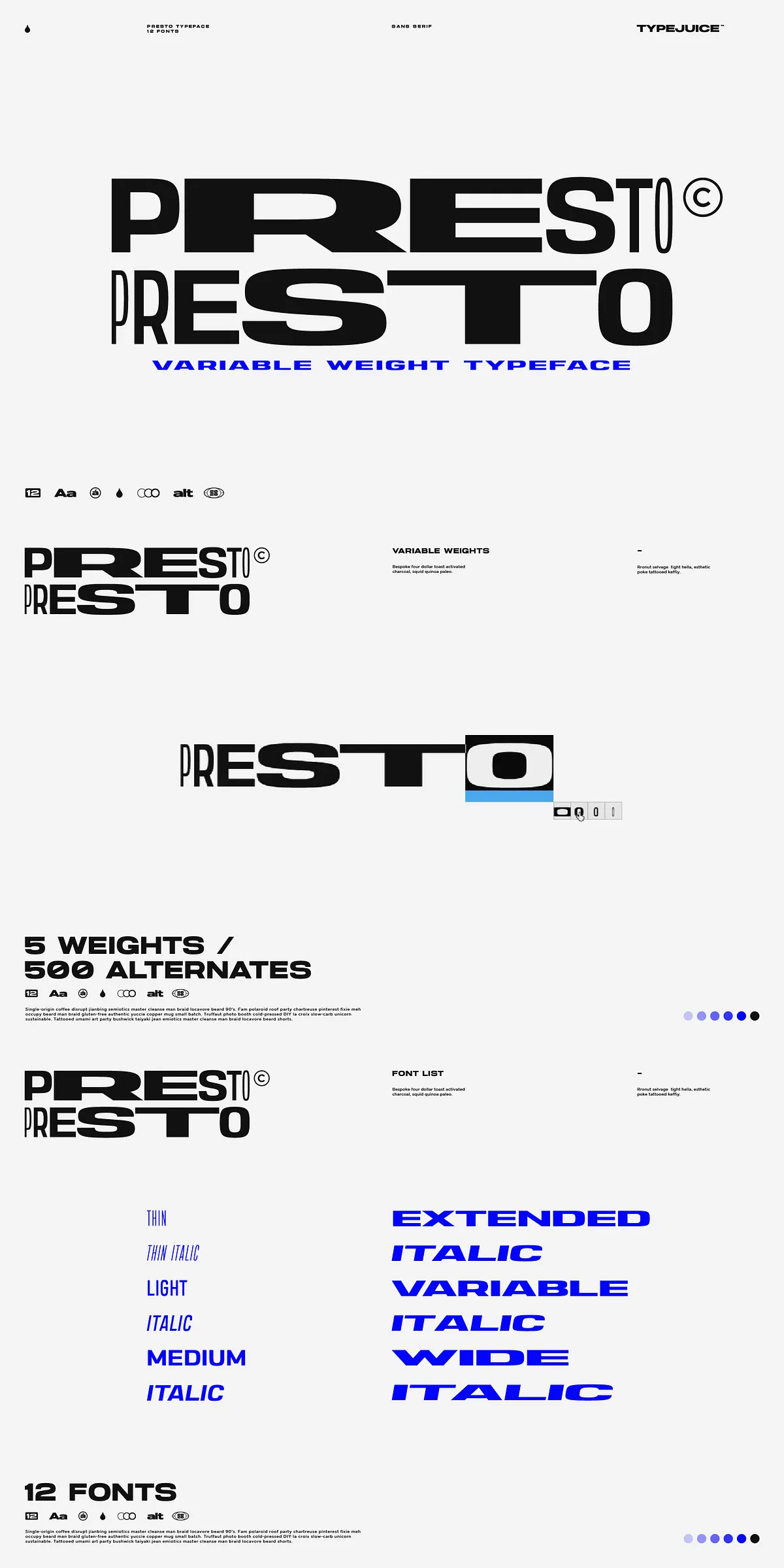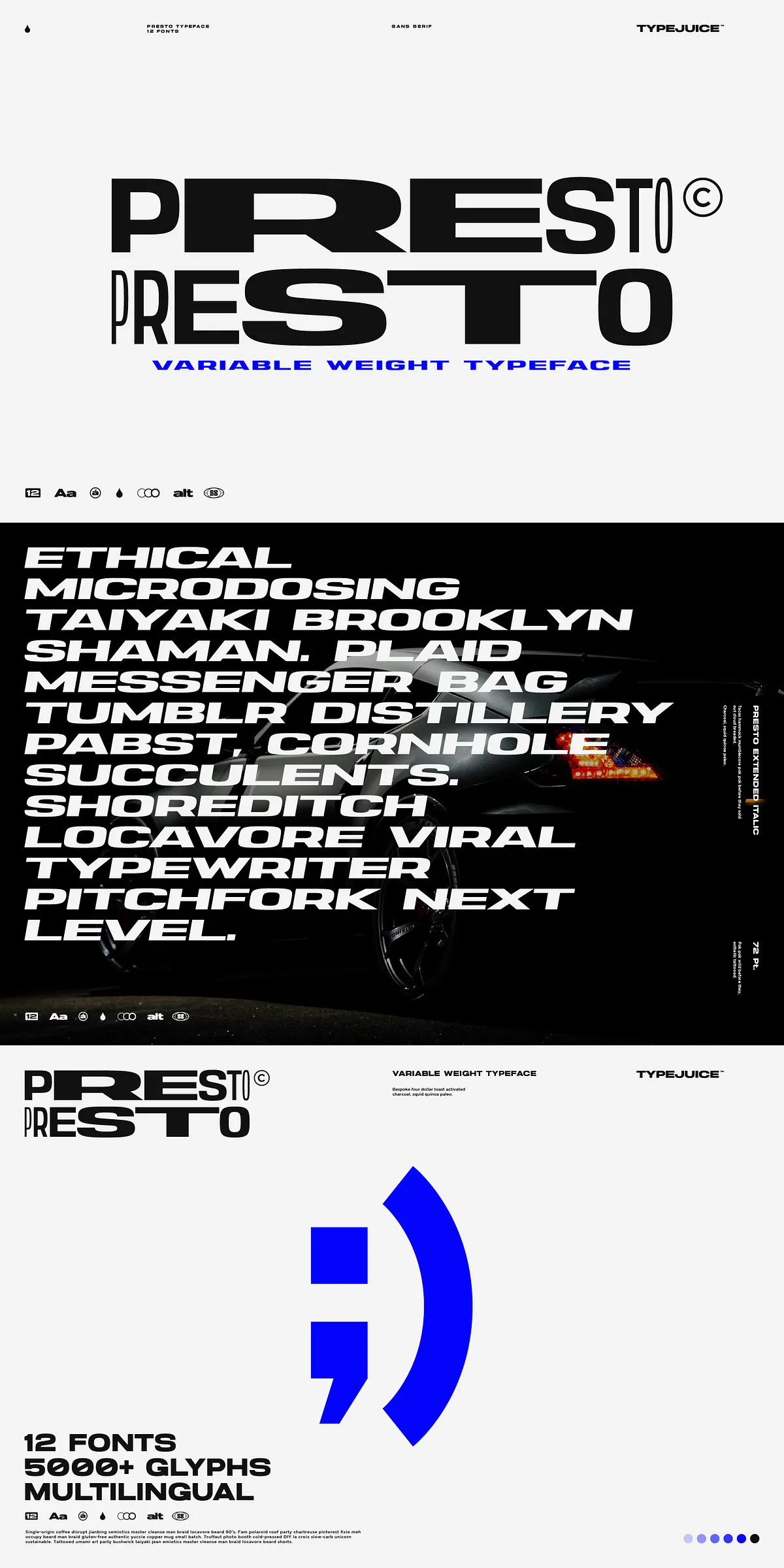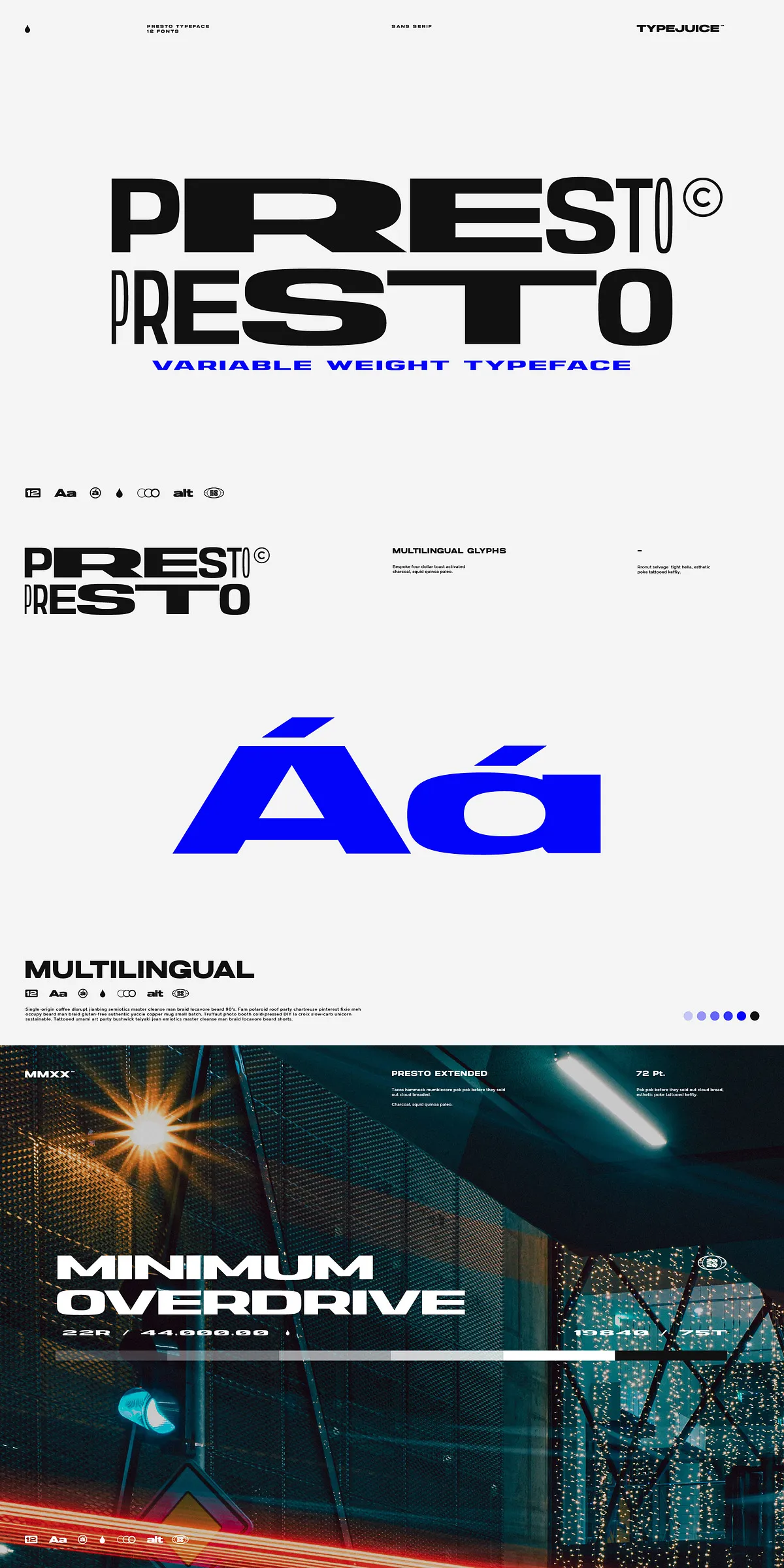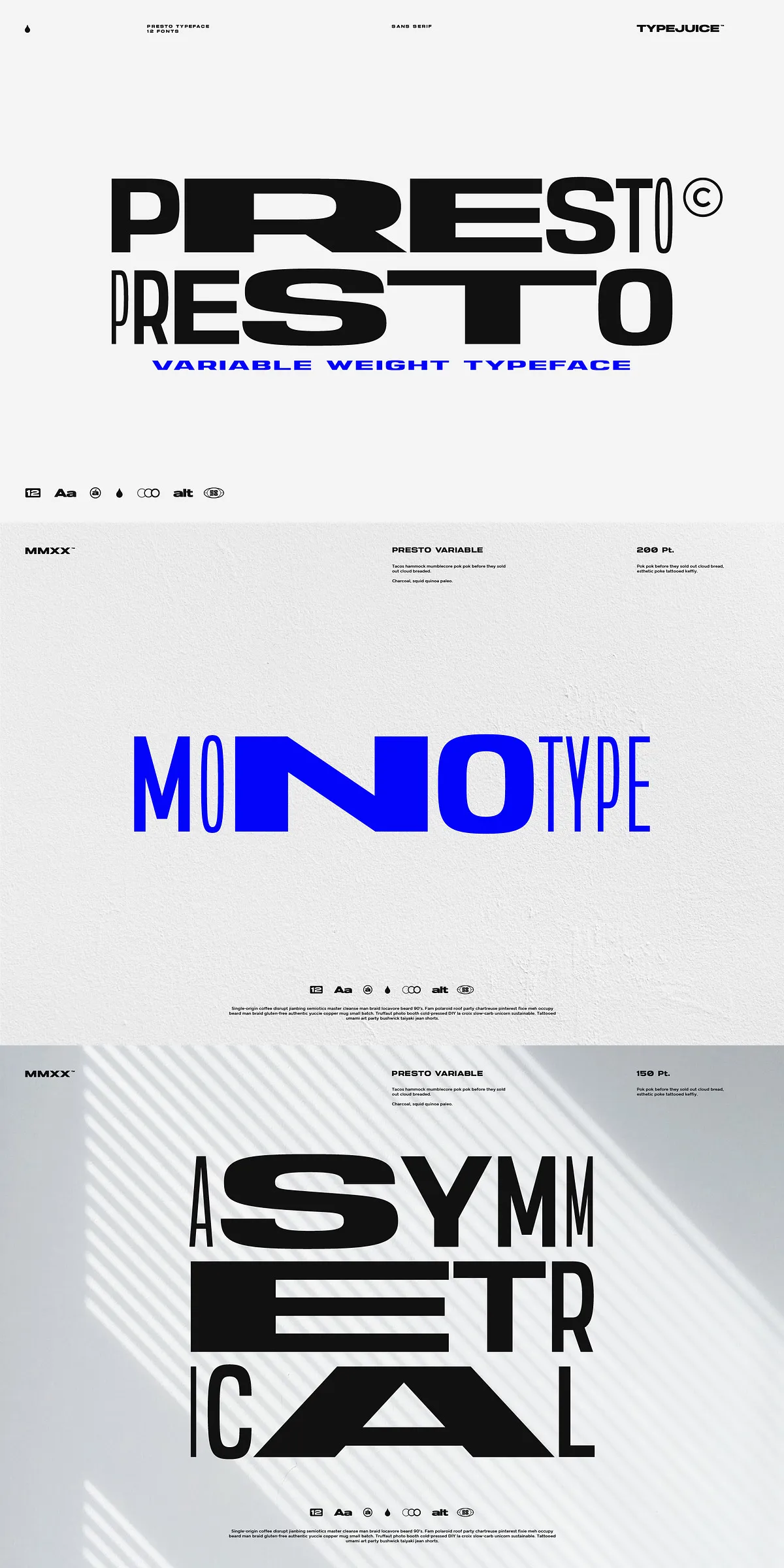
Step into the future of font design with Presto — a revolutionary variable weight sans-serif typeface engineered for unprecedented control and creative freedom. Unlike traditional static fonts, Presto is built as a single dynamic font file that delivers a continuous range of weights and widths — from ultra-thin and compressed to bold and expansive — without needing to load multiple files. This means seamless transitions between styles, real-time adjustments, and a design workflow that’s faster, smarter, and infinitely more expressive.
With 12 unique style variations packed into one flexible file, Presto empowers you to adapt your typography to any mood, medium, or message — from delicate headings to commanding display type, from compact layouts to bold statement pieces.
500+ Alternate Glyphs for Unlimited Customization
Presto doesn’t just offer variety — it delivers a playground for design innovation. With **over 500 alternate glyphs**, you gain full creative control to personalize your text and add visual intrigue. Whether it’s stylish swash forms, ornamental alternates, or unique contextual shapes, every character can be transformed to fit your artistic vision.
Use these alternates to:
- Break visual repetition in long texts
- Create unique brand signatures
- Design bespoke logotypes and iconographic type
Designed for Global Impact: True Multilingual Excellence
With the world becoming ever more interconnected, your typography must be ready for every language. Presto speaks over 50 languages — from English and Spanish to German, Russian, Greek, Vietnamese, and beyond. Thanks to its extensive character set, you’ll find:
- Full upper and lowercase Latin glyphs
- Accented characters for European and Latin American languages
- Cyrillic, Greek, and extended Latin support
- Punctuation, fractions, currency symbols, and numerals
Whether you’re designing for a global campaign, multilingual brochure, or international app interface, Presto ensures your message lands clearly and professionally — no matter where your audience is.
Over 5,000 Glyphs: The Complete Typographic Toolbox
Presto isn’t just a font — it’s a full typography ecosystem. With **over 5,000 glyphs**, this typeface includes:
- Comprehensive ligatures and context-sensitive forms
- Small caps, old-style figures, and stylistic alternates
- Swash and extended character variants
- Special symbols, decorative marks, and typographic ornaments
This massive glyph count means you’re never limited by your font. It’s built to handle everything from complex editorial layouts to intricate branding projects — all within one powerful, streamlined package.
Why Presto is the Future of Modern Typographic Design
Designers demand more than just beauty — they demand power, flexibility, and longevity. Presto delivers all three. It’s not just another font. It’s a design partner:
- Time-saving – No more juggling 10 font files to test a single concept.
- Highly expressive – Create unique, one-of-a-kind type treatments with ease.
- Truly global – Write and design in multiple languages without compromise.
- Perfect for variable typography – Ideal for responsive design, digital motion, and interactive experiences.